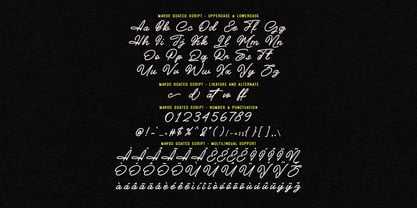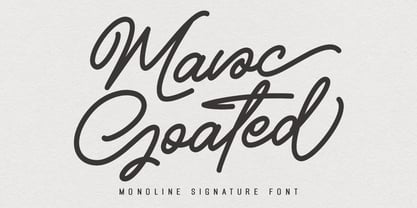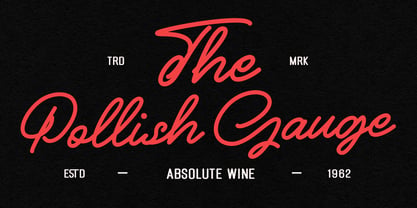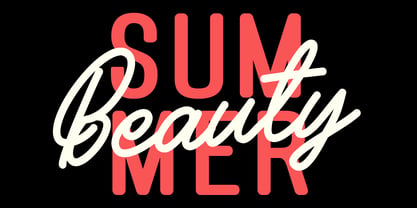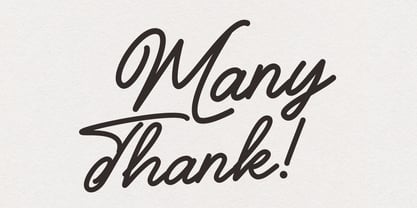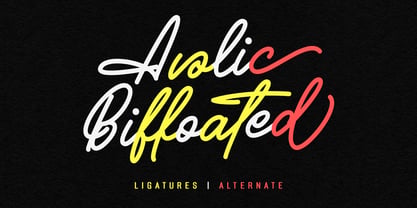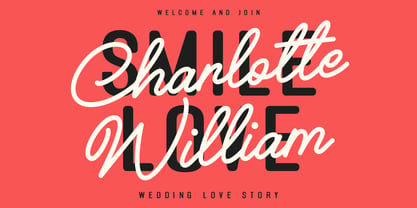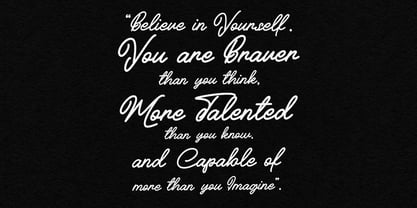
MC Mavoc Goated
por Maulana Creative
A família de fontes MC Mavoc Goated foi desenhada por Gilang Maulana e publicada pela Maulana Creative. MC Mavoc Goated contém 1 estilos.
Give your designs an authentic brush handcrafted feel. “Mavoc Goated Script” is perfectly suited to signature, stationery, logo, typography quotes, website header, branding and more.